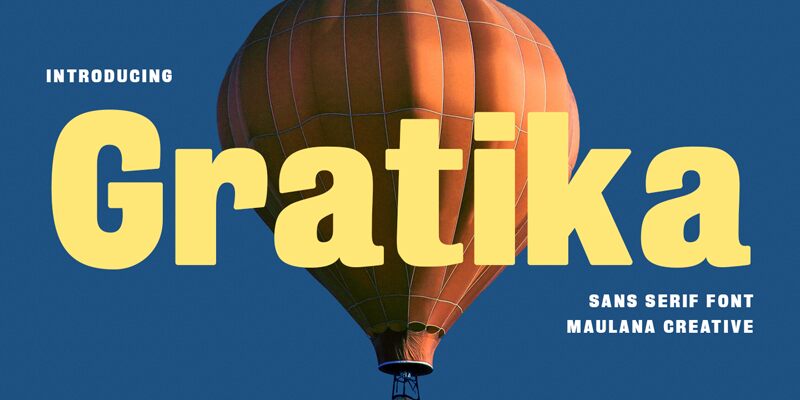
Gratika font designed by Maulana Creative is a pioneering sans serif typeface characterized by its bold, expansive presence. Visually striking, Gratika leaves an indelible impact through its daring personality and a masterful interplay of geometry and grace. This singular look makes it the ideal match for those seeking to assert their brand’s prominence.
Gratika font would be suitable for various purposes such as: greeting cards, stationery, business cards, design titles or subtitles, blog headers or footers and much more.